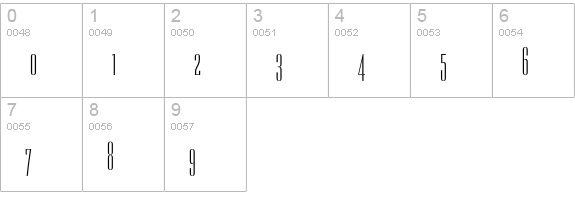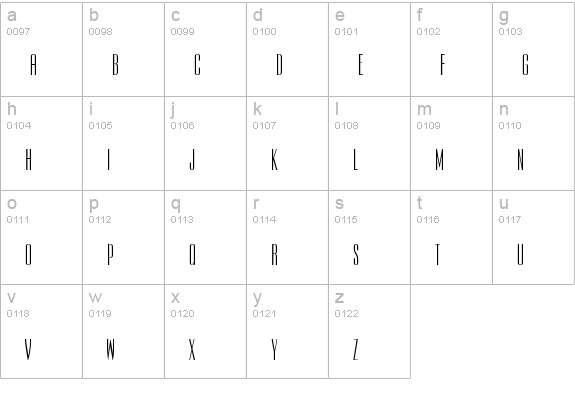
Empire-Smallcaps Font Details
Empire-Smallcaps font exudes a sense of elegance and sophistication with its sleek and modern design. The stylish small caps add a touch of uniqueness to any design project, making it stand out from the rest. Perfect for headings, titles, and branding materials, Empire-Smallcaps font is a versatile choice for both digital and print applications. What's even better is that Empire-Smallcaps font is available for free download at FontsMarket.com. This means you can easily access this premium font without any cost, adding value to your creative endeavors. Don't miss out on the opportunity to elevate your designs with Empire-Smallcaps font - get it now and make a statement with your typography!